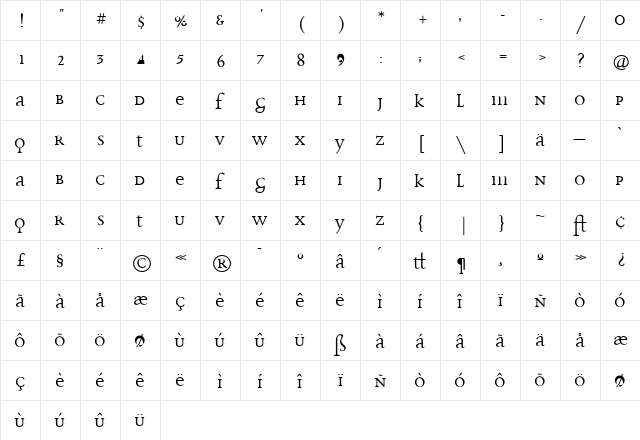
Disturbance Regular
Design Context for Disturbance Typeface
Disturbance is a composed and adaptable typeface that performs quietly and consistently across a wide range of design contexts.